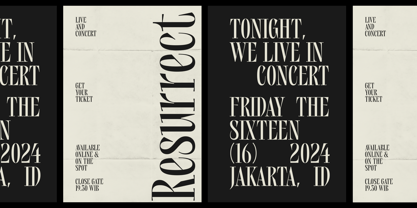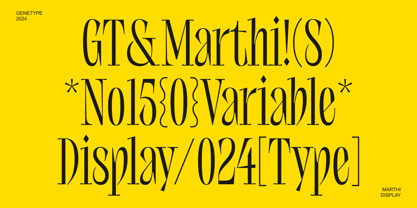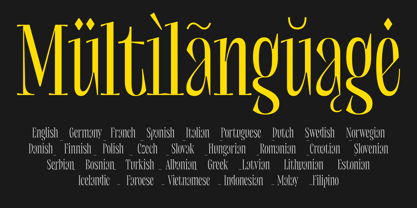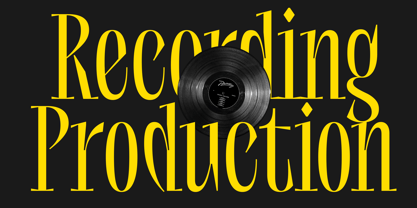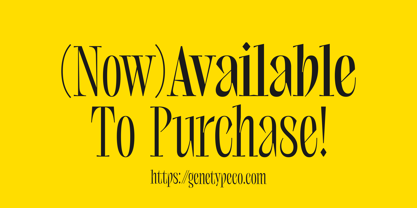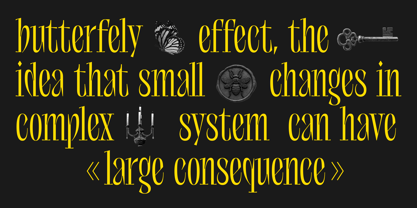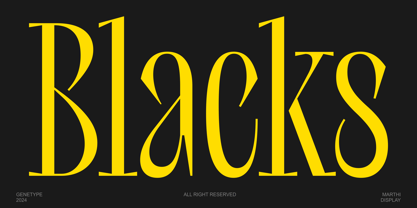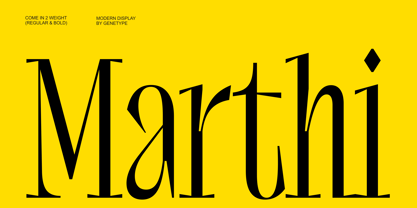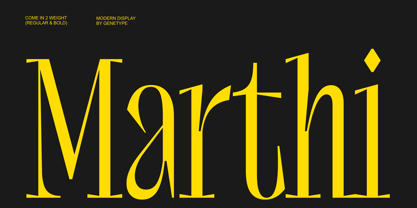
Marthi
by Genetype
The Marthi Font Family was designed by Bagus Arya Kirana and published by Genetype. Marthi contains 2 styles and family package options.
Say Hello to Our New Unique & Modern Marthi Serif Font
This font is all about mixing the best of classic and modern. With its sharp, stylish serifs and smooth, clean lines, it’s got that perfect blend of timeless charm and fresh energy. Available in Regular and Bold weights, it’s super flexible for all kinds of projects—whether you’re creating standout logos, stunning websites, or cool print designs. Simple, stylish, and a little bit bold—this font is here to make your designs pop!